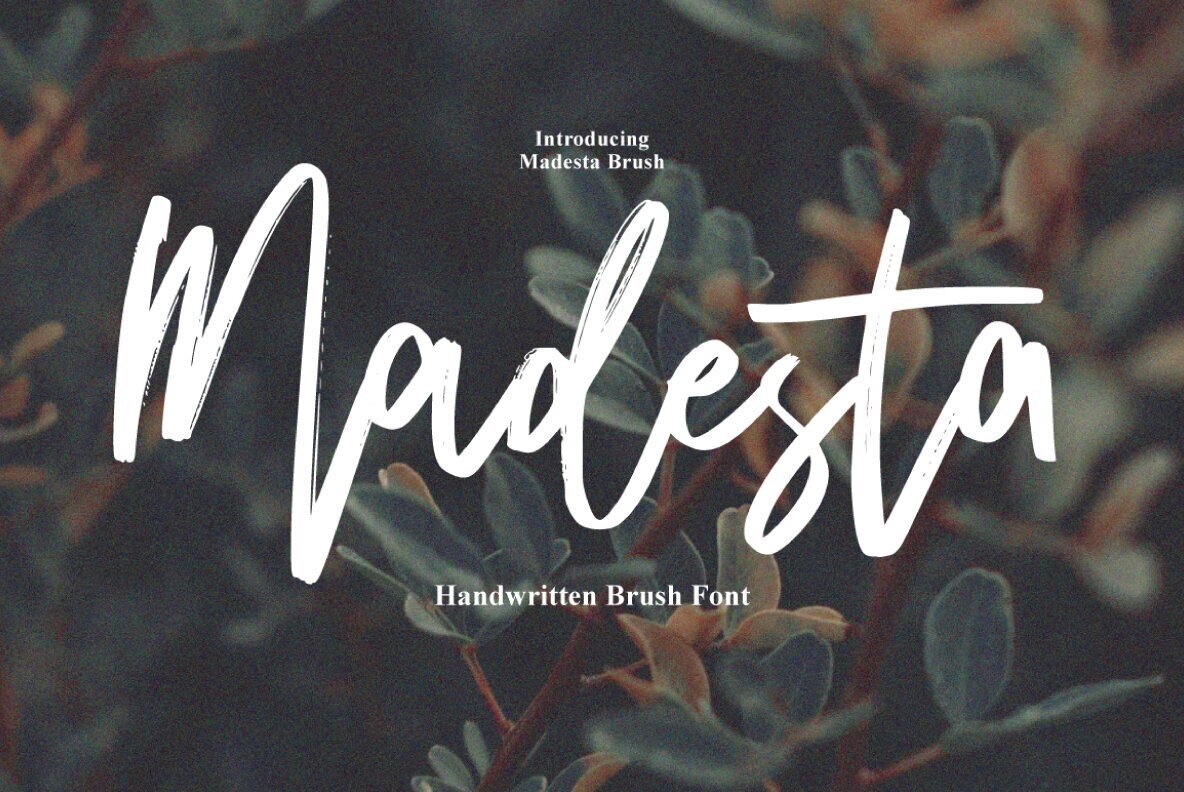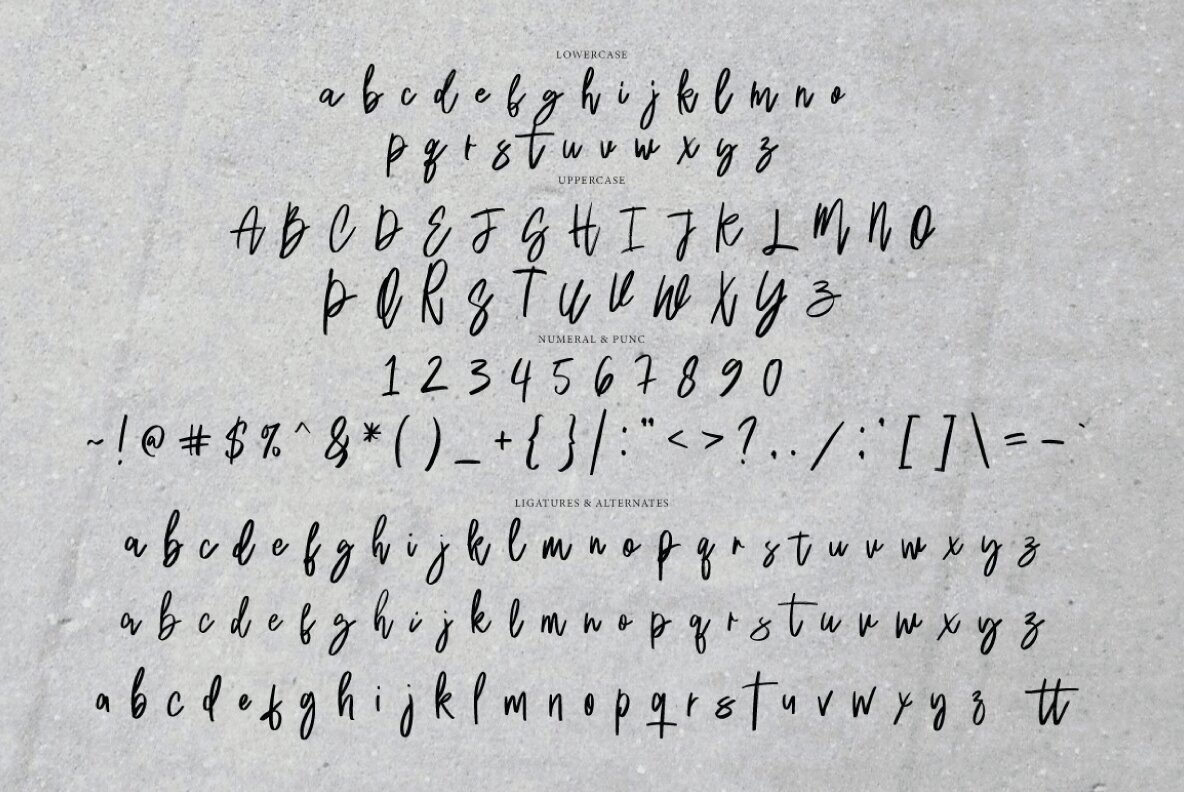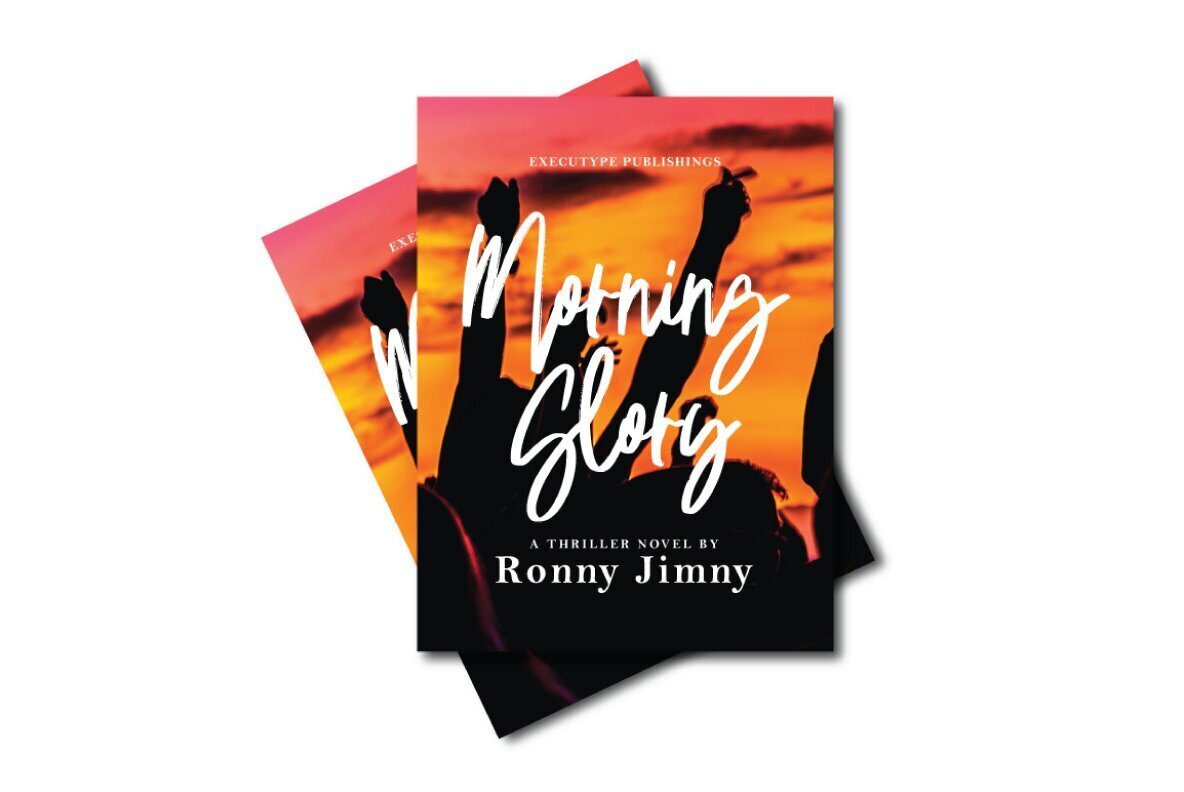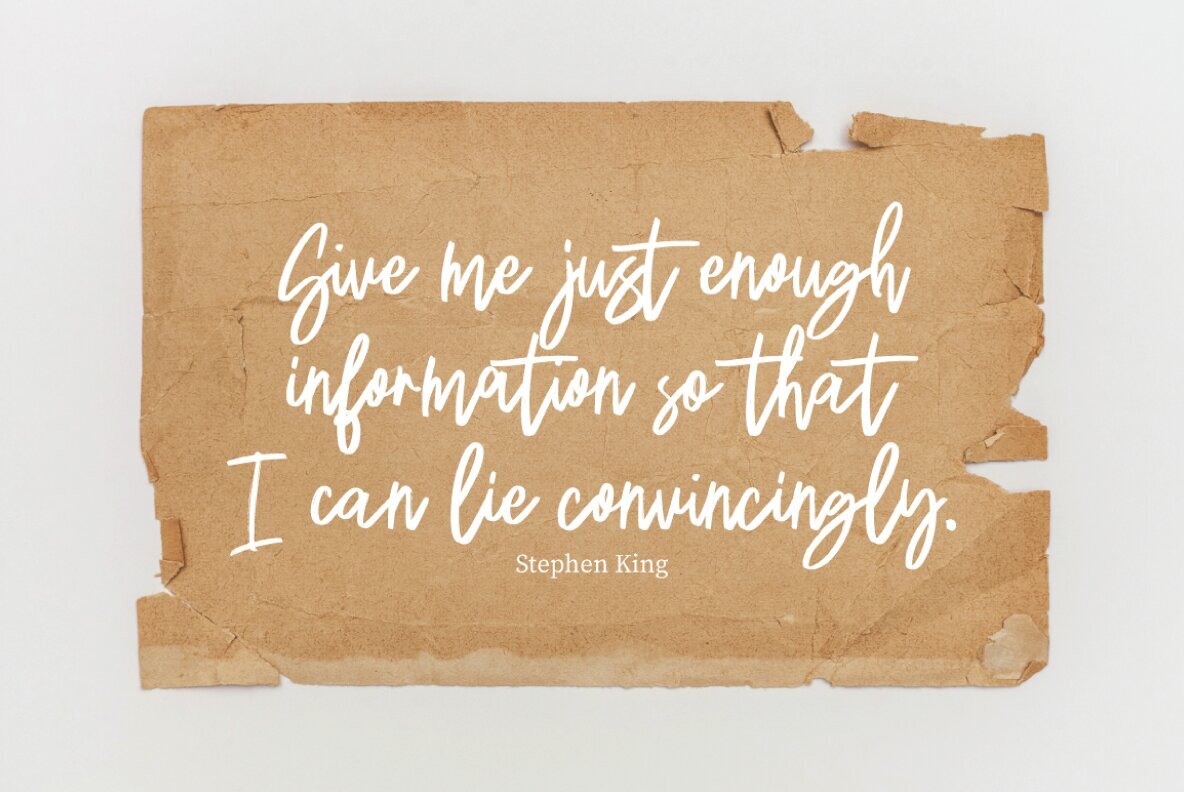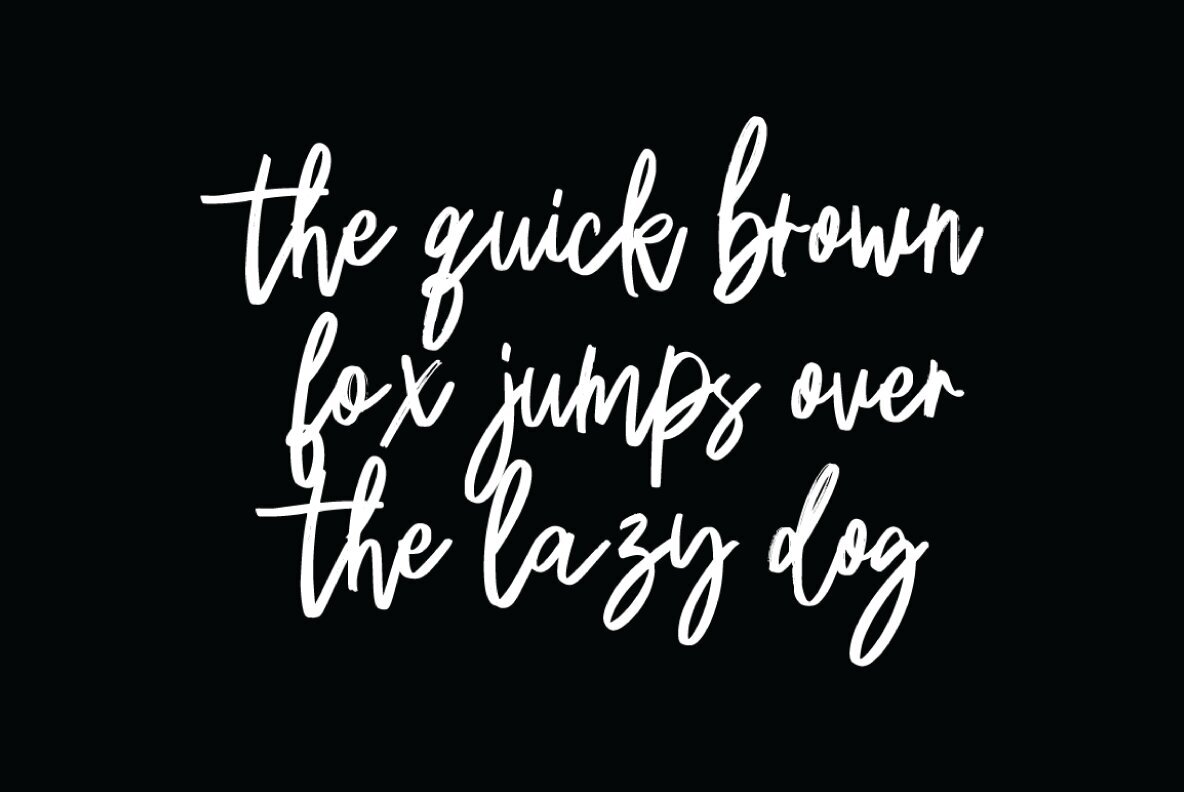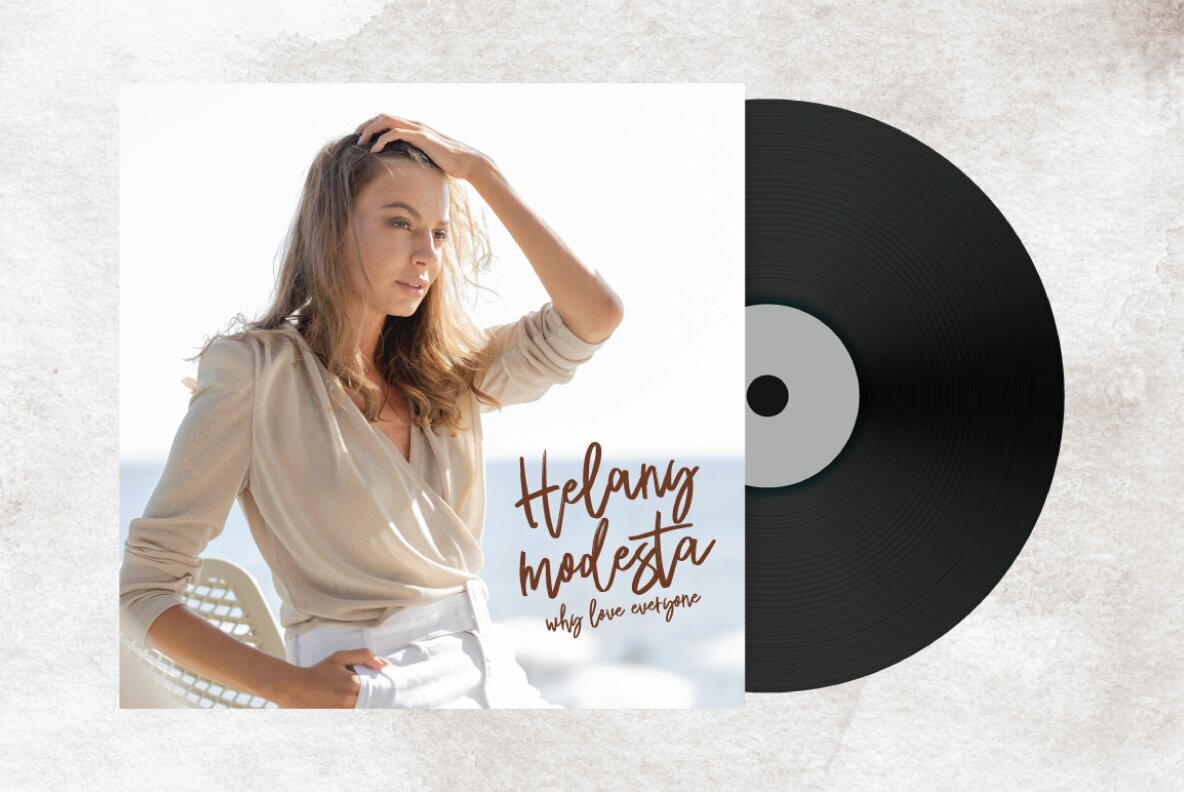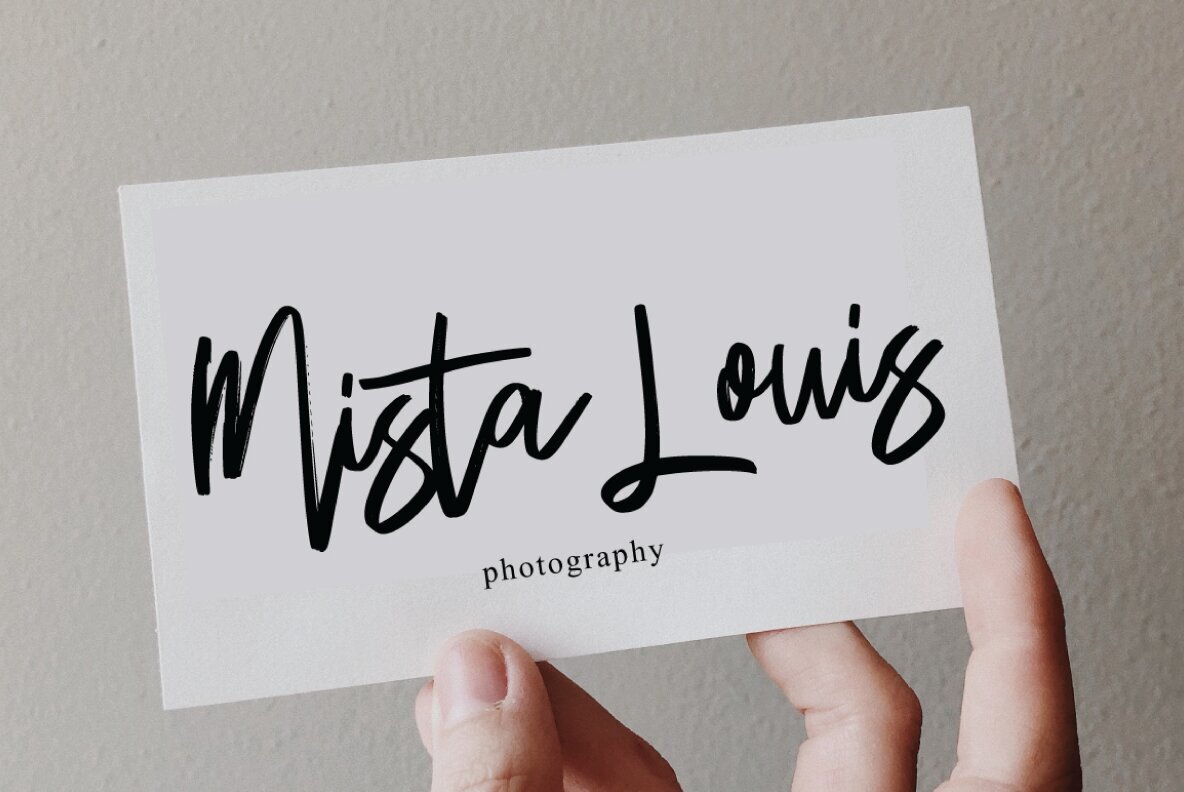
Madesta Brush Font
Madesta Brush Regular
Add a unique personality to your design projects with the dynamic Madesta Brush typeface. Ideal for logos, badges, insignias, packaging, headlines, and posters, this typeface provides an artistic touch to every creation. Unlock the full potential of Madesta Brush by using programs that support OpenType features, such as Adobe Illustrator, Photoshop, and InDesign.Madesta Brush Typeface
Versatile Features